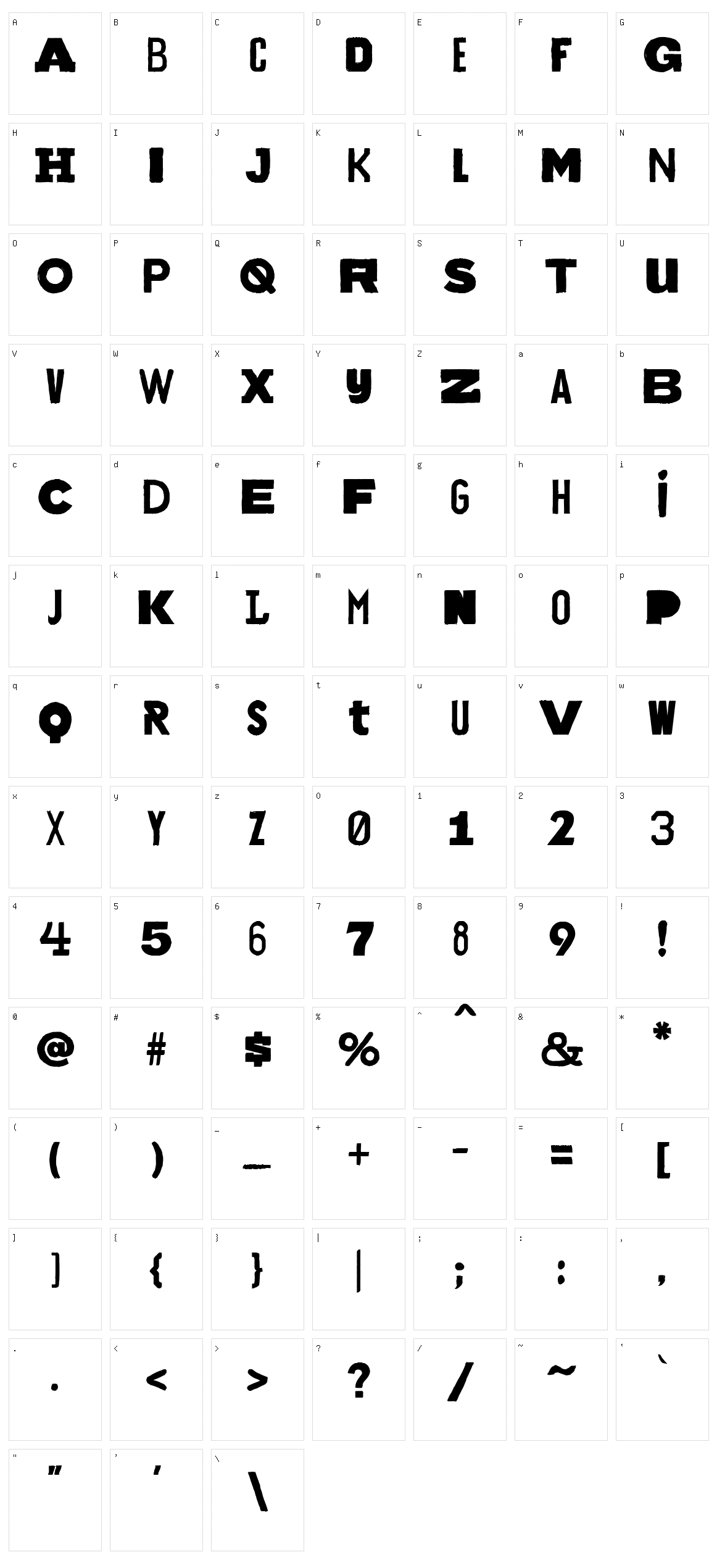
The free font Bakunin is carefully designed by Doğukan Karapınar, showcasing a thoughtful balance of creativity and usability and falls under the Eroded font style. When you download the ZIP file, it contains only 544.75 KB of font files, making it lightweight and quick to download. Please review the license details below to understand permitted usage and distribution rights. If license information is not available, we recommend using this font for personal projects only or contacting the author directly for commercial usage permissions.
Designed by Doðukan Karapýnar.